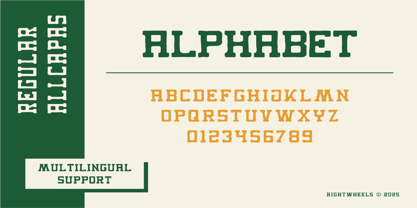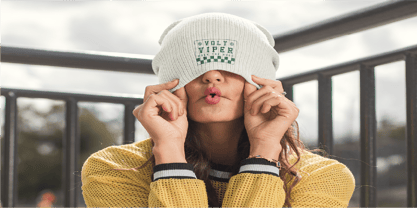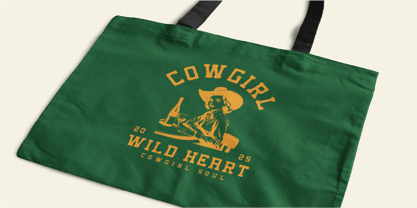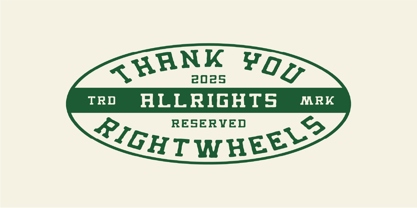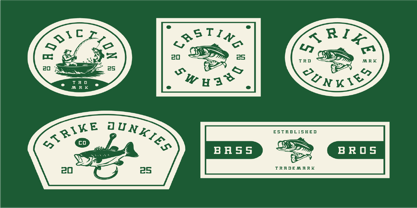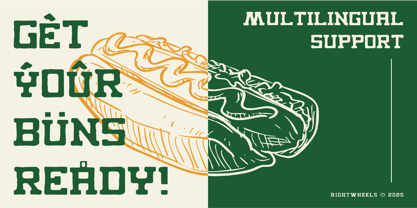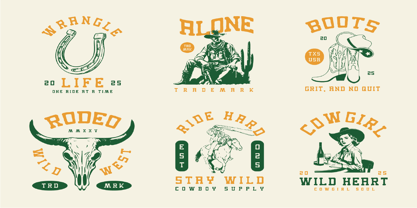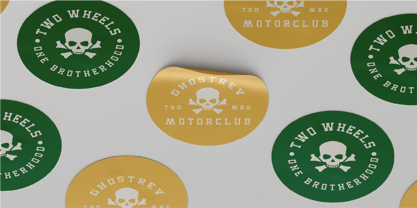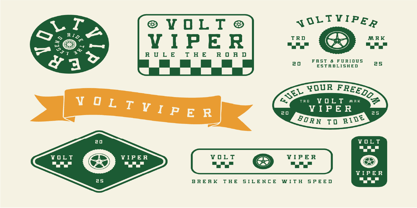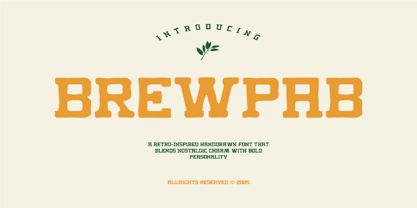
Brewpab
von Rightwheels
Die Schriftfamilie Brewpab wurde von entworfen und von Rightwheels veröffentlicht. Brewpab enthält 1 Stile. Mehr über diese Familie
Brewpab a retro-inspired handdrawn font that blends nostalgic charm with bold personality. Crafted with a vintage touch, Brewpab captures the spirit of classic sign painting and old-school posters, making it perfect for branding, packaging, logos, and creative design projects that need a handcrafted, timeless feel. Each letter is drawn with character, giving your text a warm, authentic, and eye-catching presence.